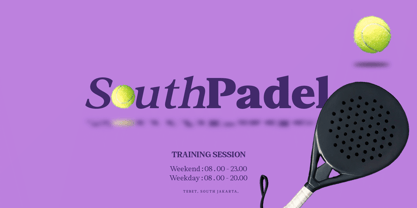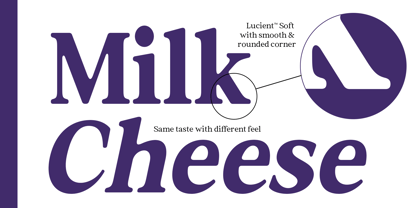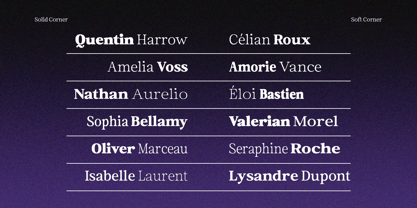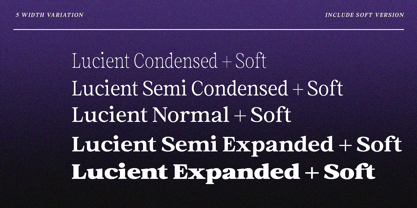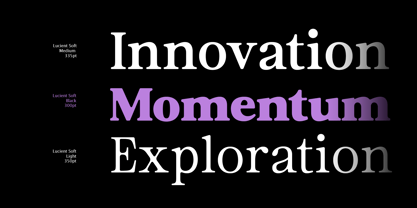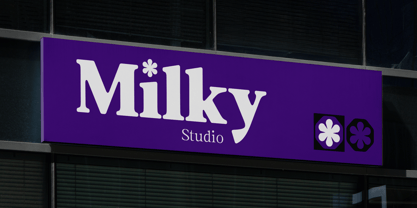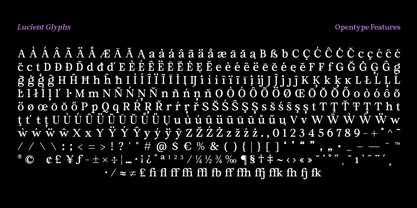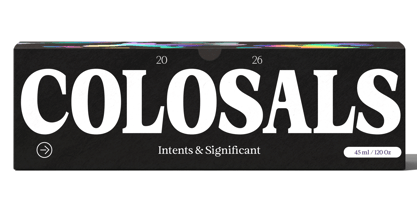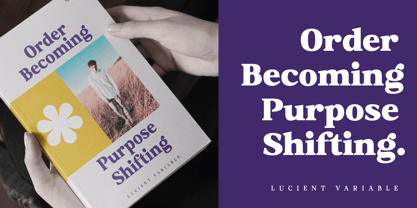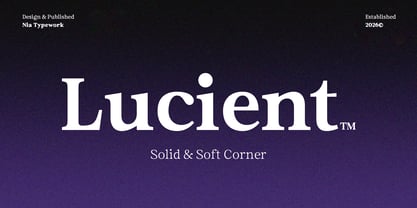
Lucient
by Nia Typework
The Lucient Font Family was designed by Nia Octarina and published by Nia Typework. Lucient contains 181 styles and family package options. More about this family
Soft
Hard
Lucient is a refined serif typeface that balances elegance and warmth through its soft corners, subtle slant, and carefully crafted proportions. Designed with 9 weights and 5 width variations, it offers exceptional versatility for both display and editorial applications. Its graceful curves and solid structure create a sophisticated visual rhythm, making it ideal for branding, luxury packaging, publishing, headlines, and contemporary typography. Lucient delivers a timeless character while maintaining a modern, approachable presence across print and digital environments.